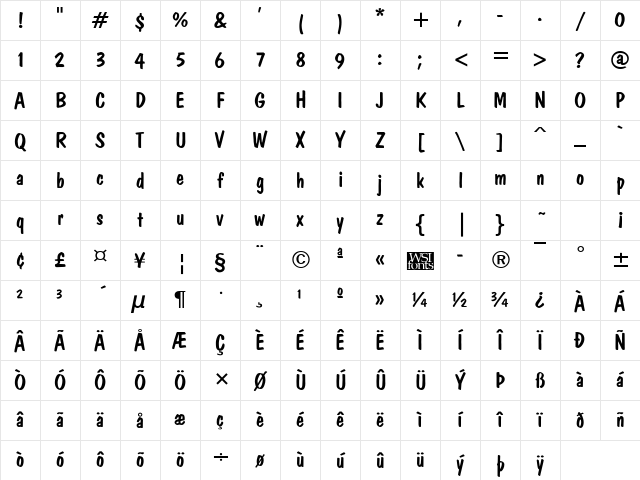
Brush Dom Regular Regular
Design Context for Brush Dom Regular
Brush Dom Regular flows with the natural rhythm of handwritten lettering, making it ideal for designs that call for warmth and personal expression.
Font Pairing: Combine Brush Dom Regular with a simple geometric sans for maximum contrast - the tension between flowing curves and clean structure is a classic typographic pairing.
Pro Tip: Use Brush Dom Regular for short runs of text - names, titles, or taglines. Extended body copy in script faces tires the eye quickly.